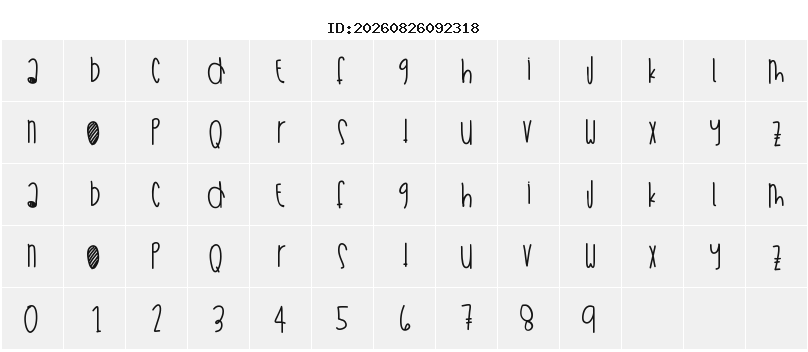
WeekendSummerFun Preview
About WeekendSummerFun.ttf
WeekendSummerFun.ttf is a modern, elegant sans-serif font designed for ultimate readability and visual harmony. Perfect for branding, headlines, web design, and print materials.